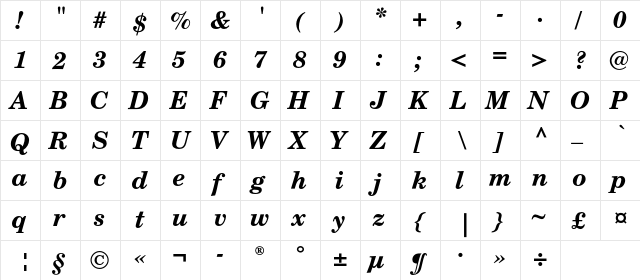
NewCenturySchoolbookC Bold Italic Font Preview
Design Context for NewCenturySchoolbookC Typeface
NewCenturySchoolbookC offers clean, dependable letterforms without strong stylistic allegiance, making it a practical choice for designers who need flexibility. The dynamic lean of this cut emphasises speed and emphasis in any layout. The heavy weight commands attention and anchors typographic hierarchies.
Pro Tip: Try NewCenturySchoolbookC for annotation and caption copy alongside an upright companion — the contrast in angle creates a dynamic but ordered typographic system.